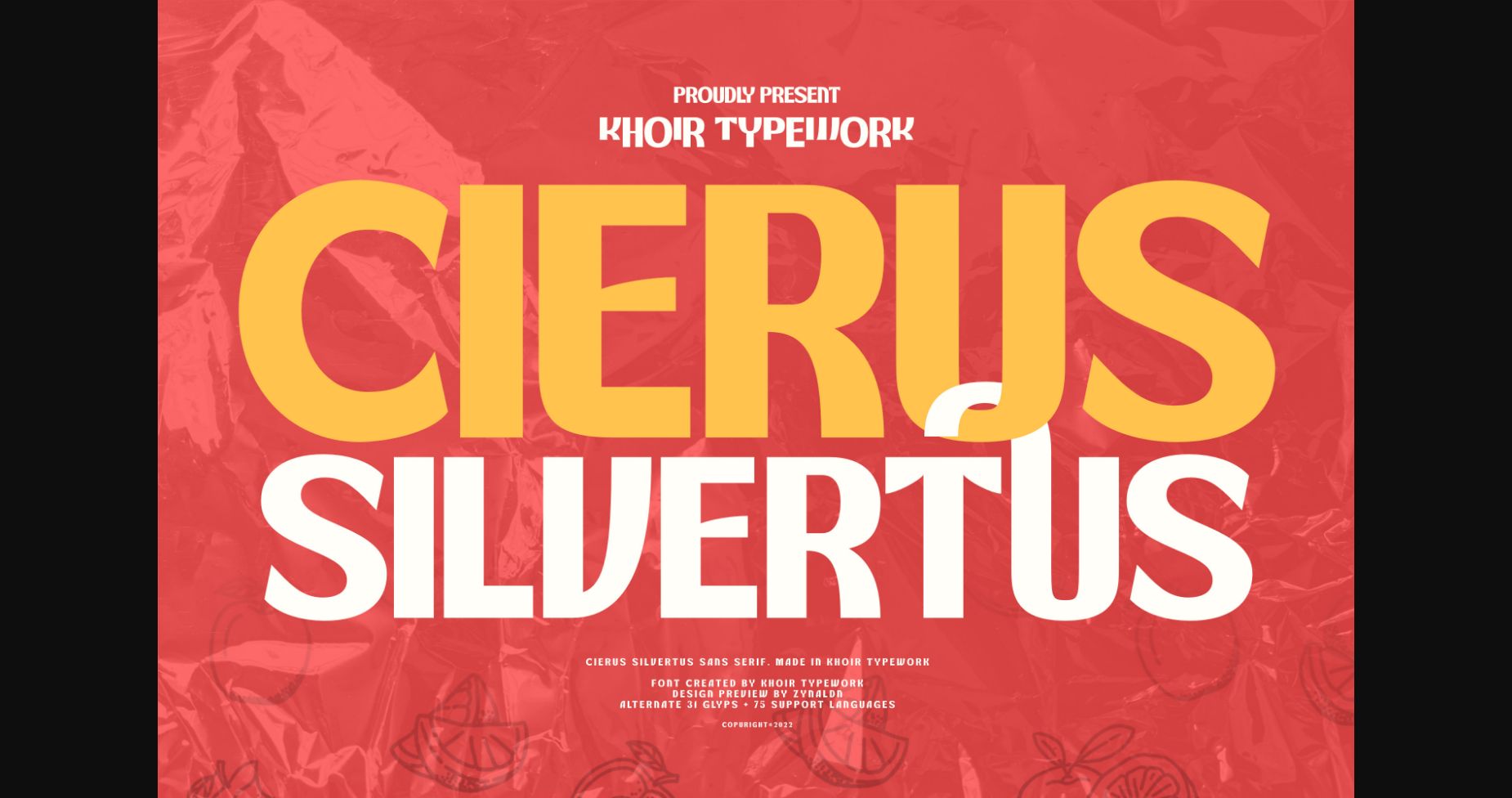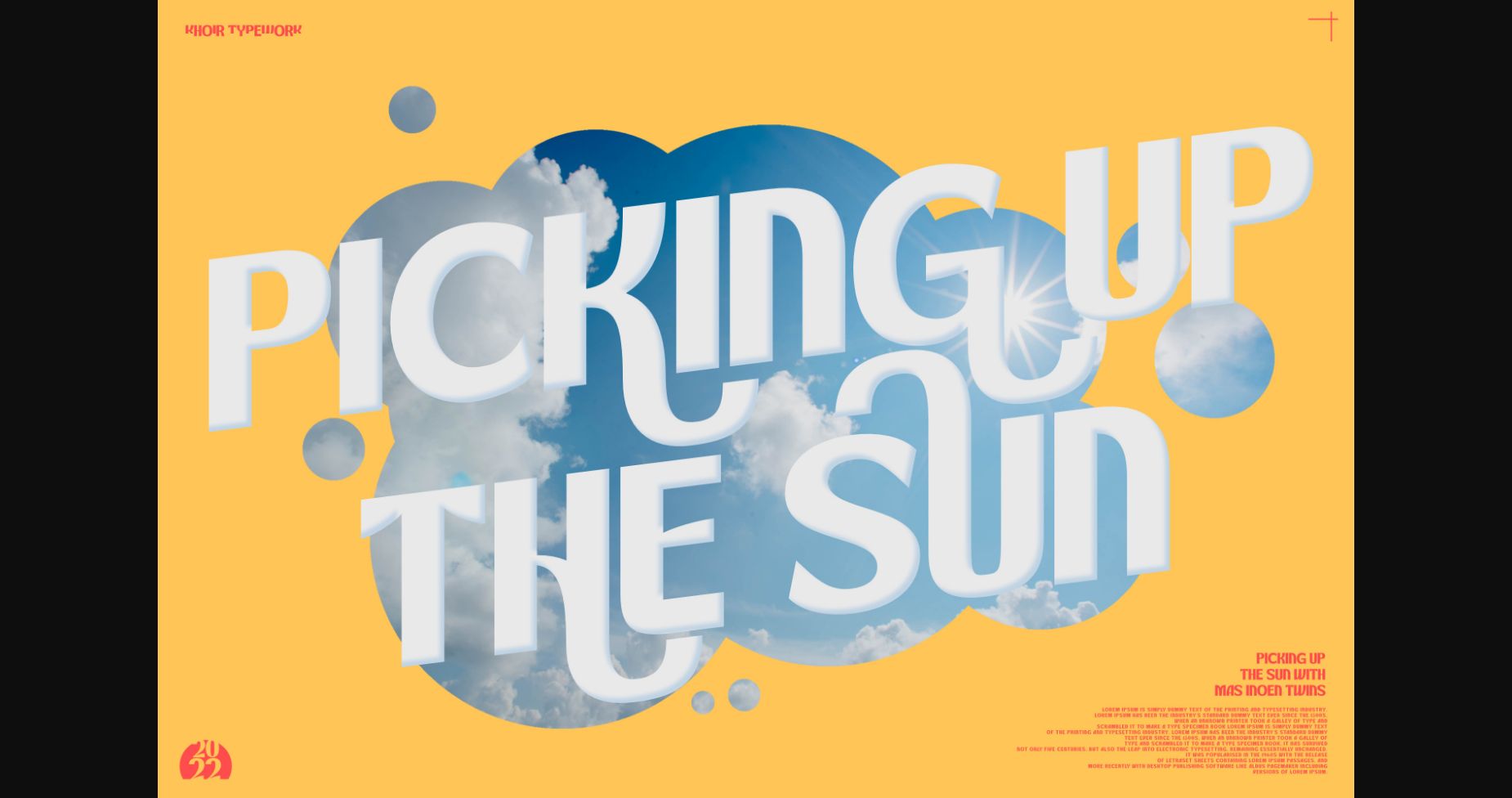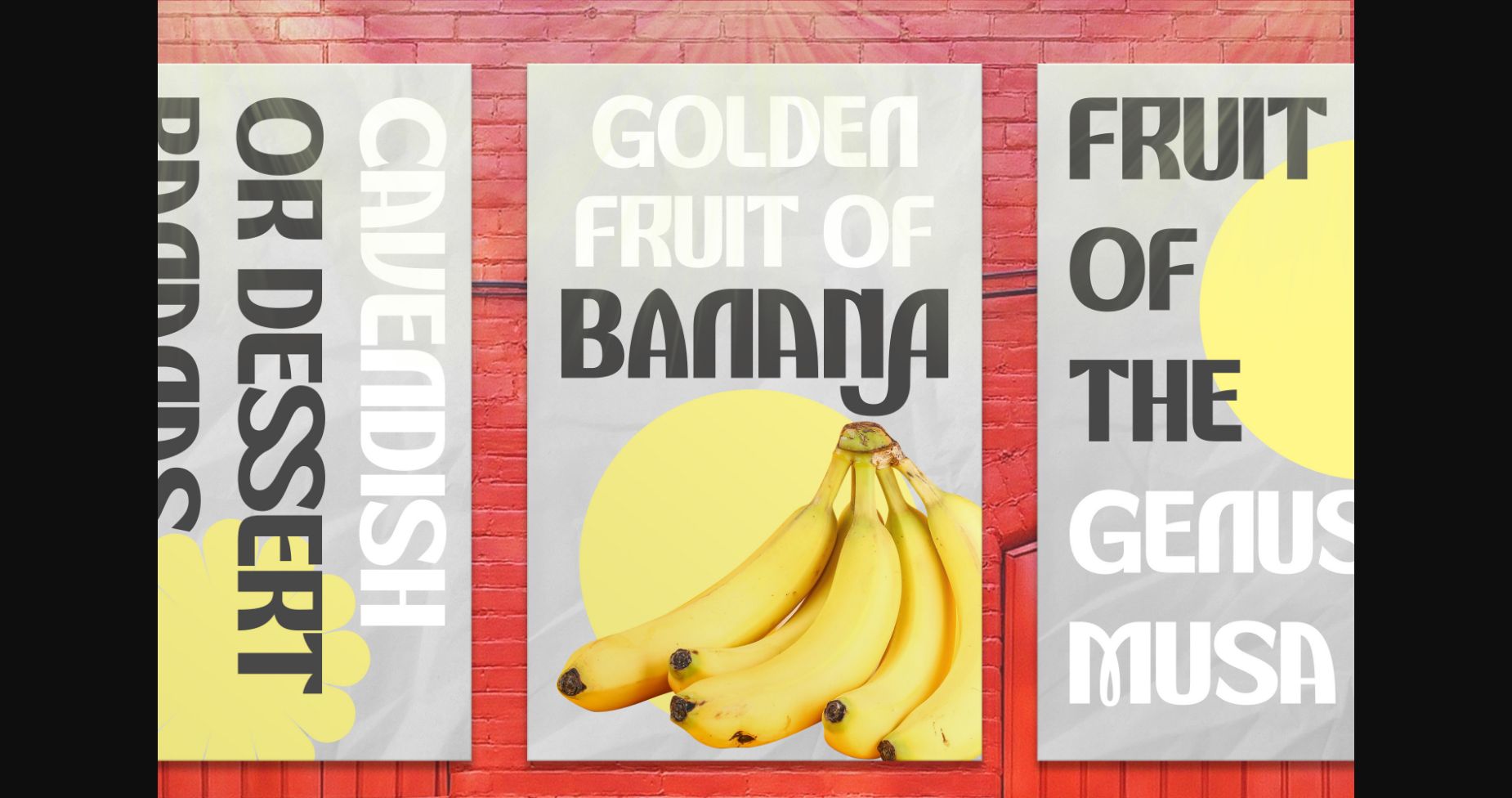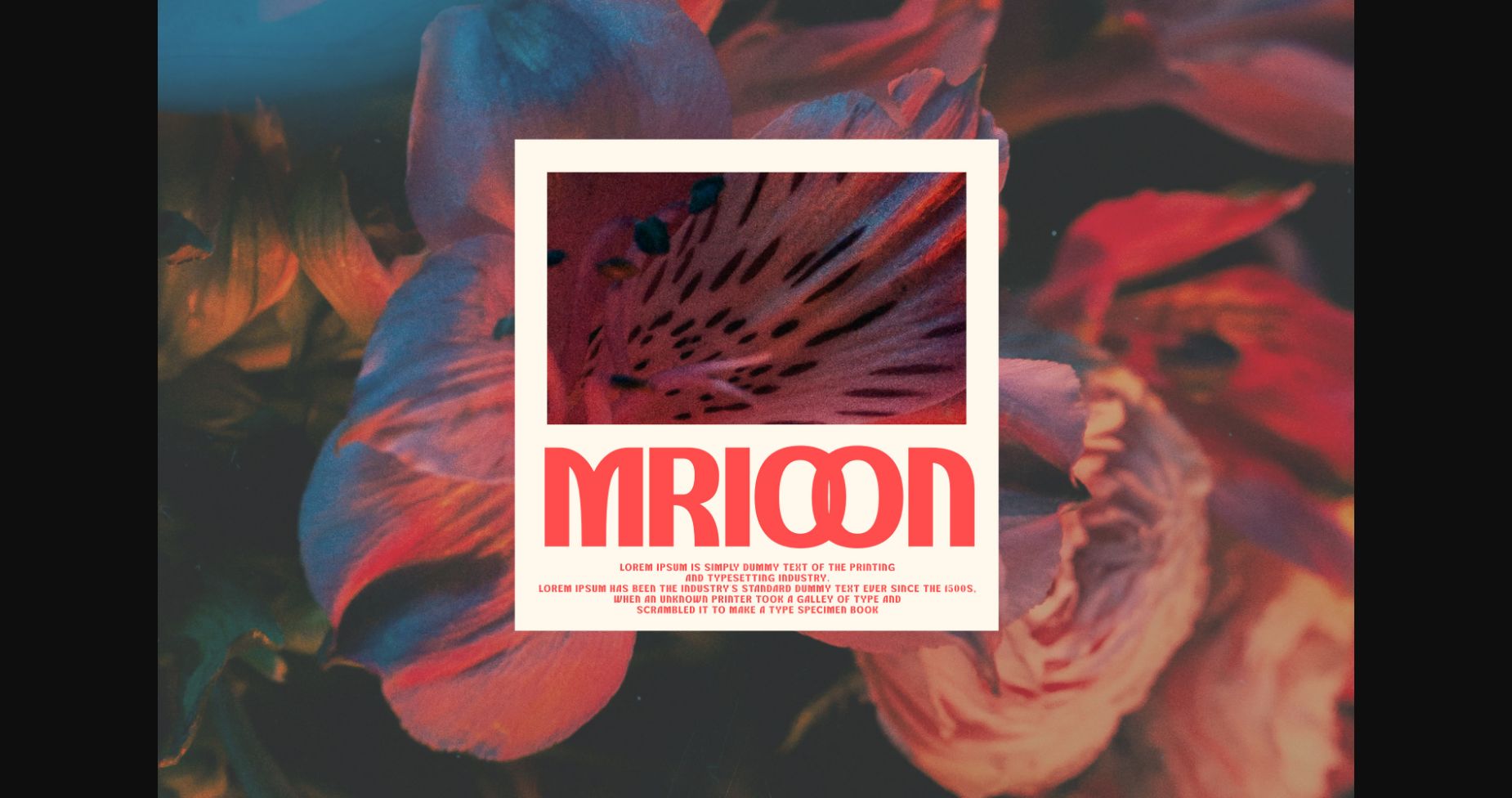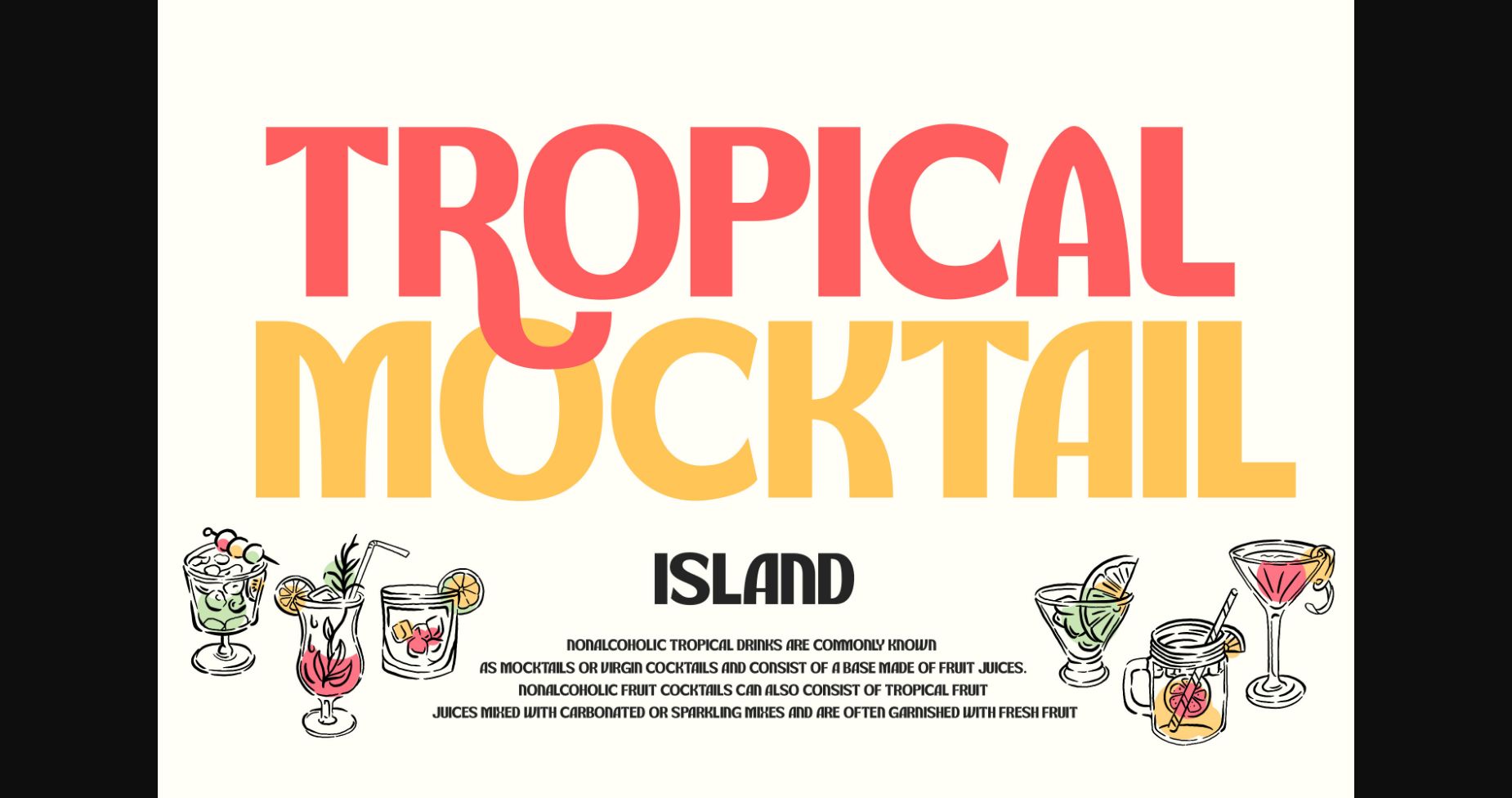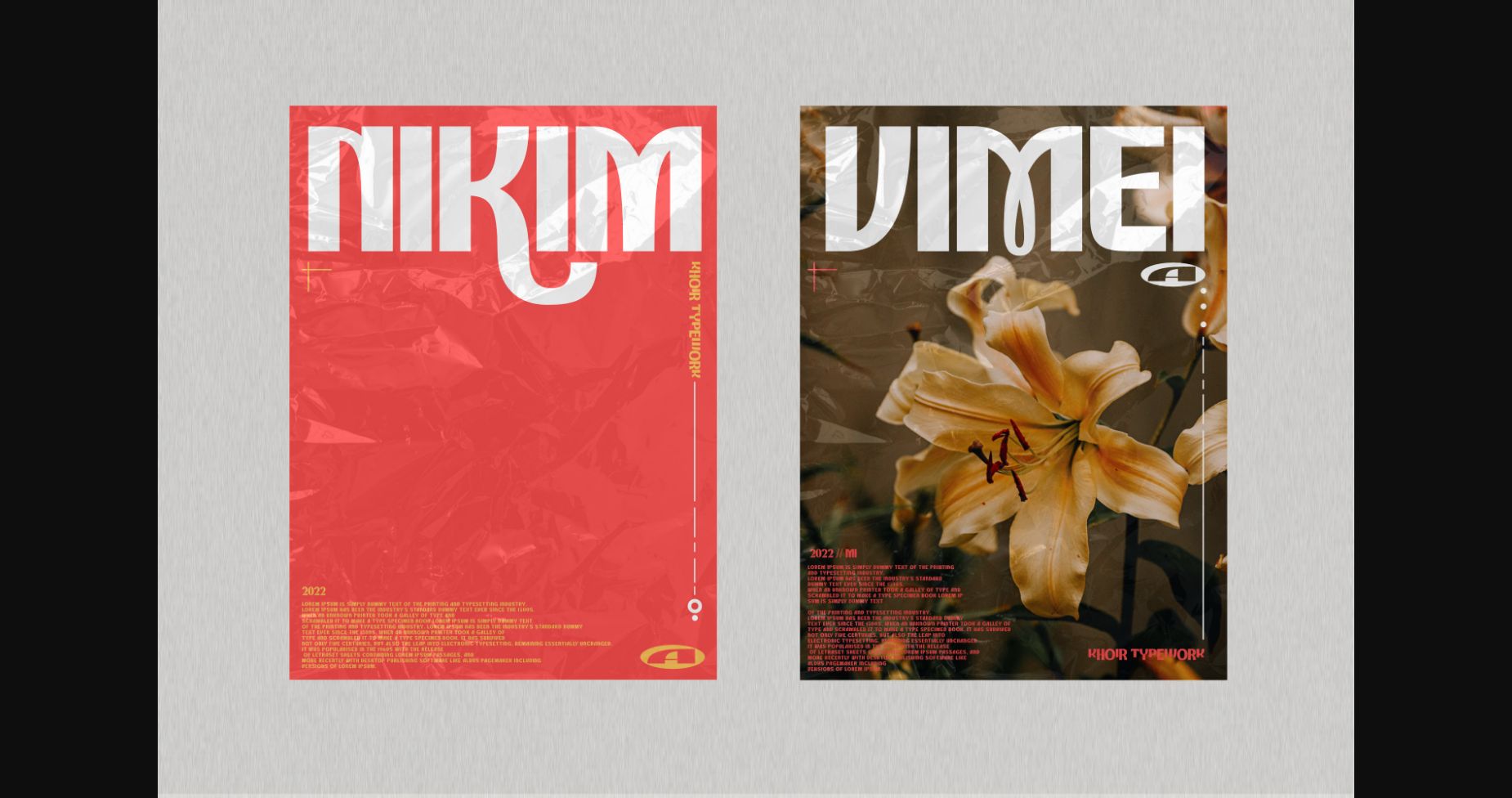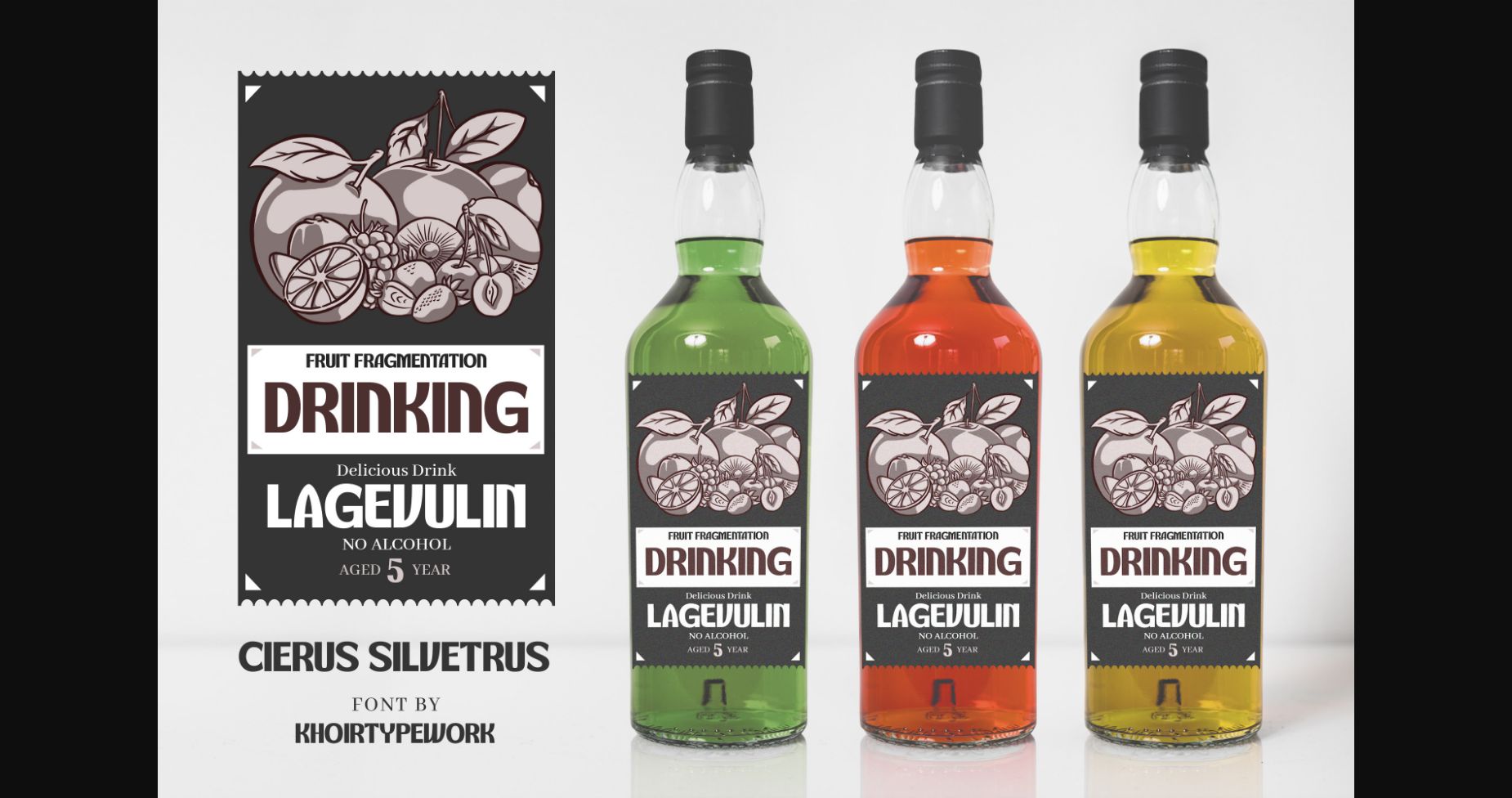
Cierus Font
About Cierus Font
Cierus is a fresh and cute display. Its natural and playful charm is perfect for posters, stickers, flyers, food trucks, and more!